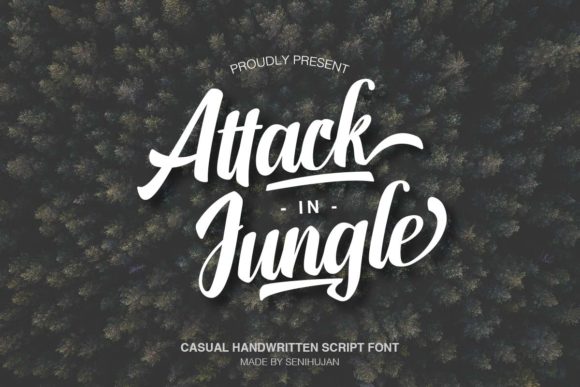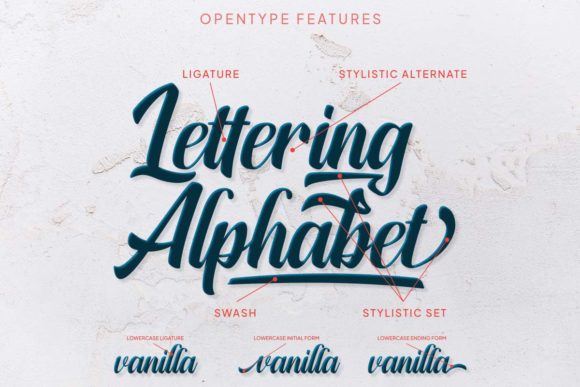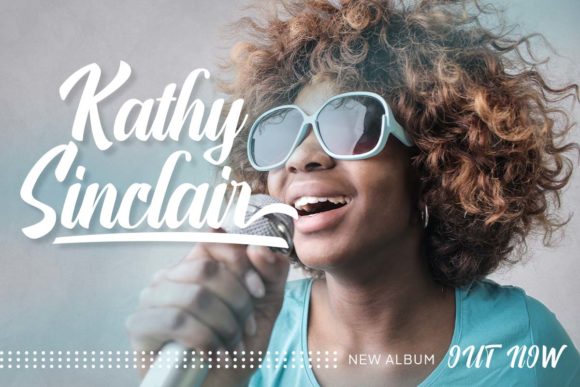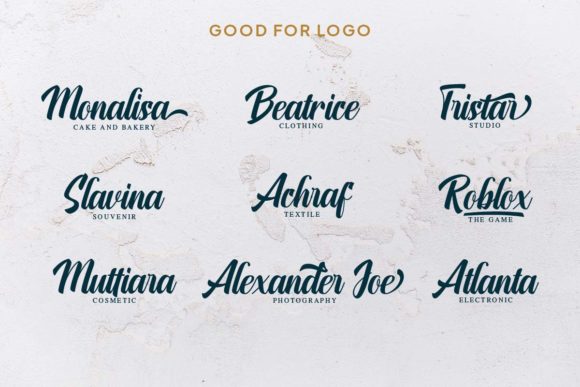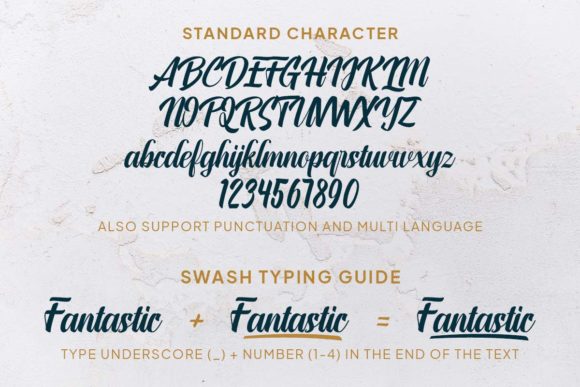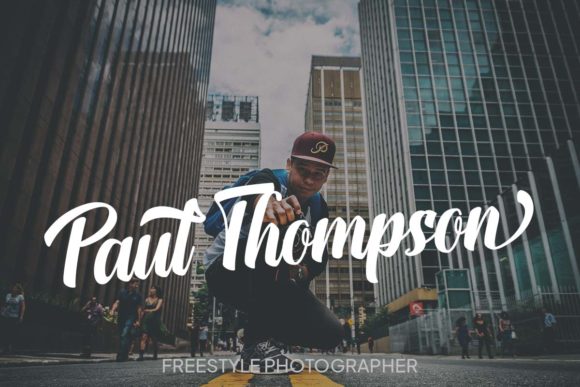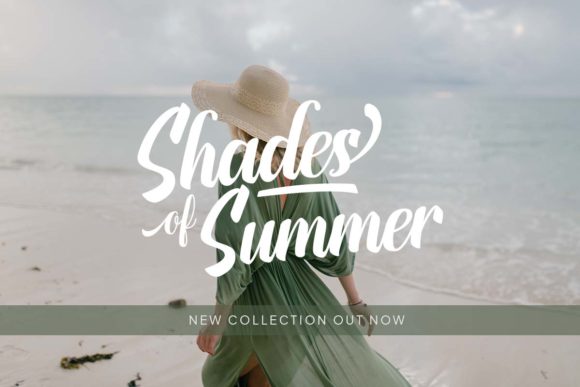
Attack in Jungle Font
About Attack in Jungle Font
Attack in JungleĀ is a flowing handwritten font. Trendy and stylish, this font will elevate each of your creations. Attack in Jungle is PUA encoded which means you can access all of the glyphs and swashes with ease!Ā